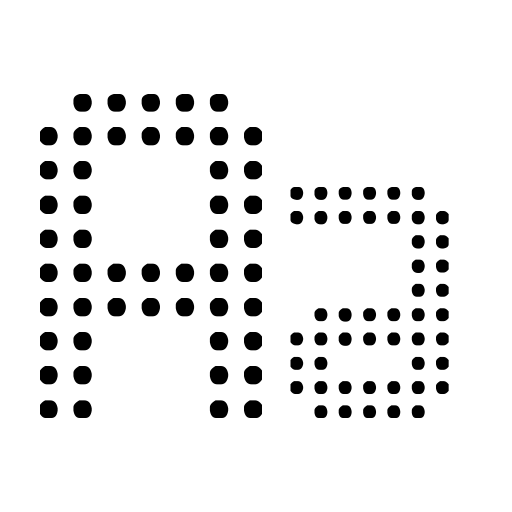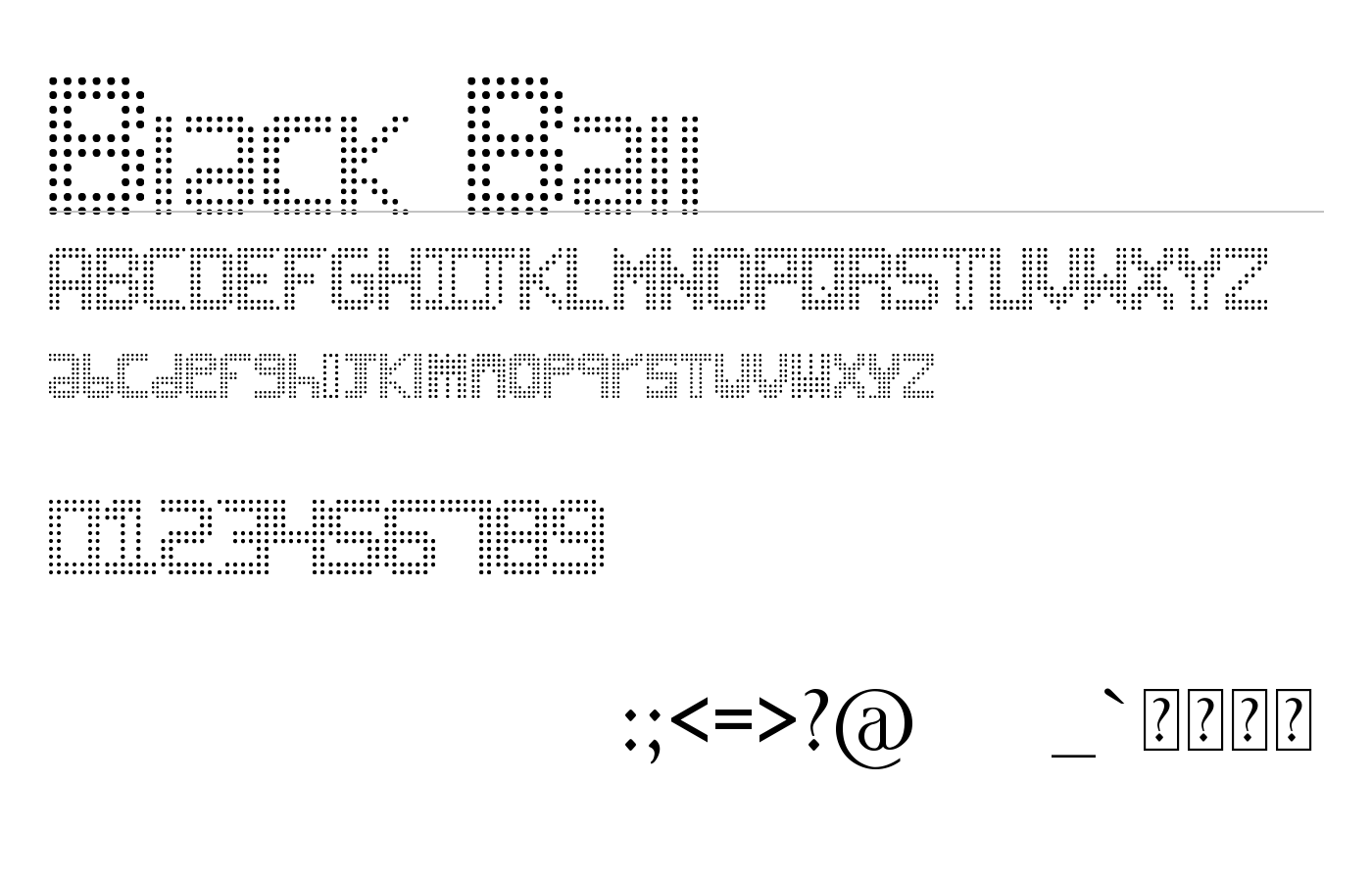
Black Ball is a modern, sans serif display font distinguished by its unique dot matrix style, where each letter and number is composed of evenly spaced black circles. It offers a geometric, tech-inspired aesthetic with a uniform weight and wide spacing, making it perfect for eye-catching headlines, digital-themed designs, and creative branding that aims to stand out. This font works especially well in playful or futuristic contexts, where a clean yet unconventional look is desired.
Black Ball Font
About Black Ball Font